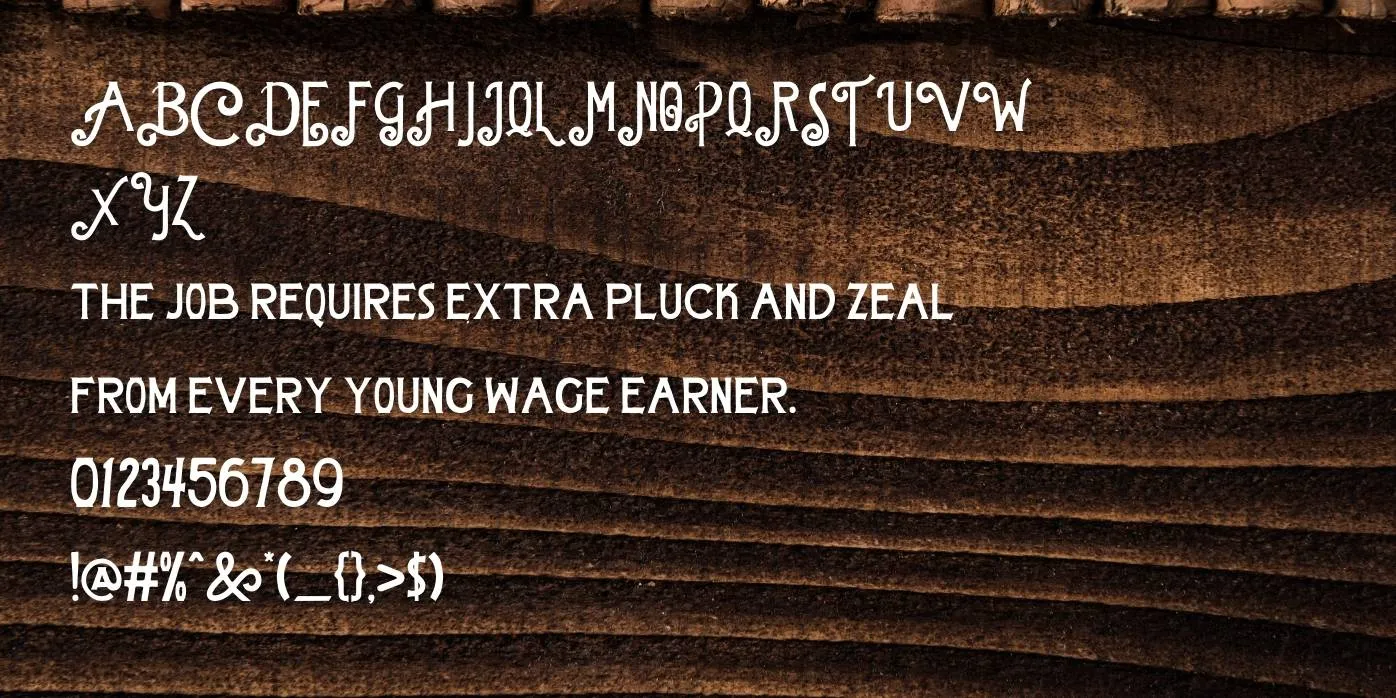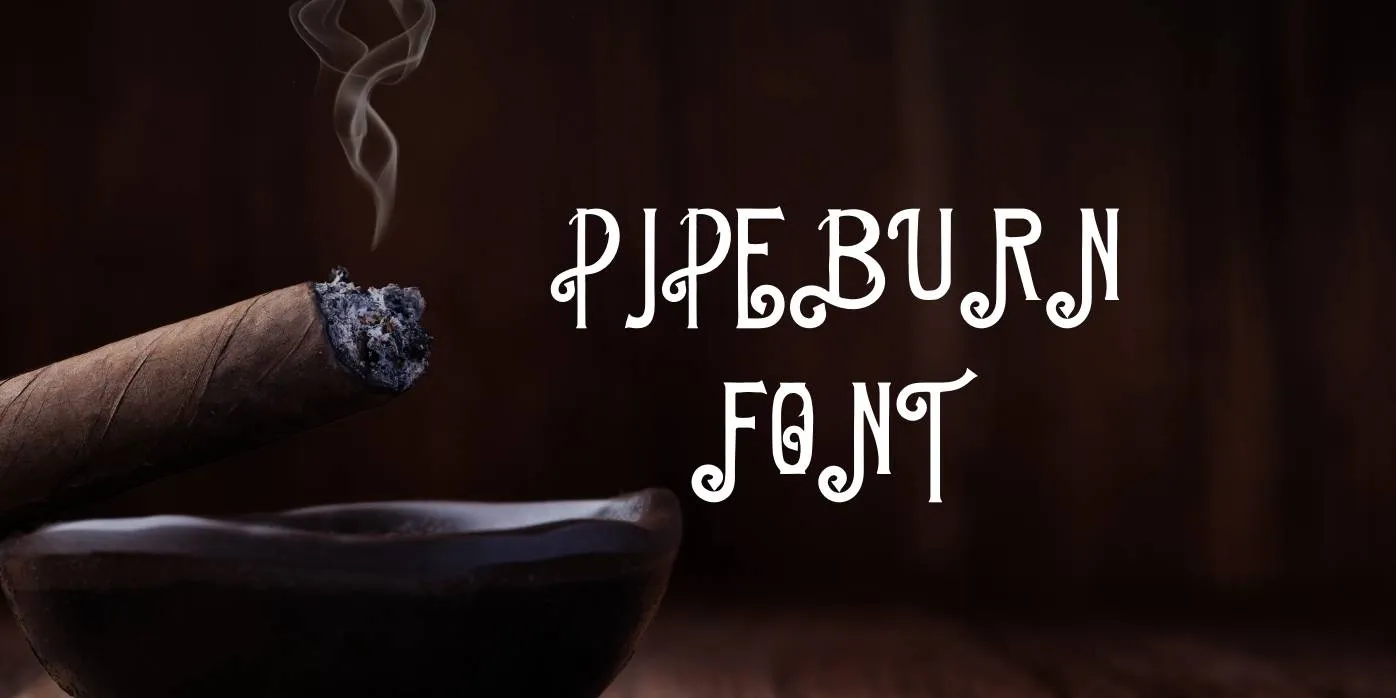
Pipeburn Font
Introducing the modern hand-writing style with pipe shape font that is Pipeburn font. It belongs to a Calligraphy font family and Angga Mahardika made this outstanding typeface with his beautiful creativity skills. This beautiful typeface is free for personal use and has beautiful OTF features. The characters of this font are very prominent and beautiful and its corners seem like pipelines which give a very different shape.
It has also a swashes textual appearance. This typeface has an Opentype layout and Postscript outlines as well. It includes Uppercase and Lowercase, Letters, Numbers and Numerals, and special symbols also. You may also generate this typeface and may get it immediately even without downloading.